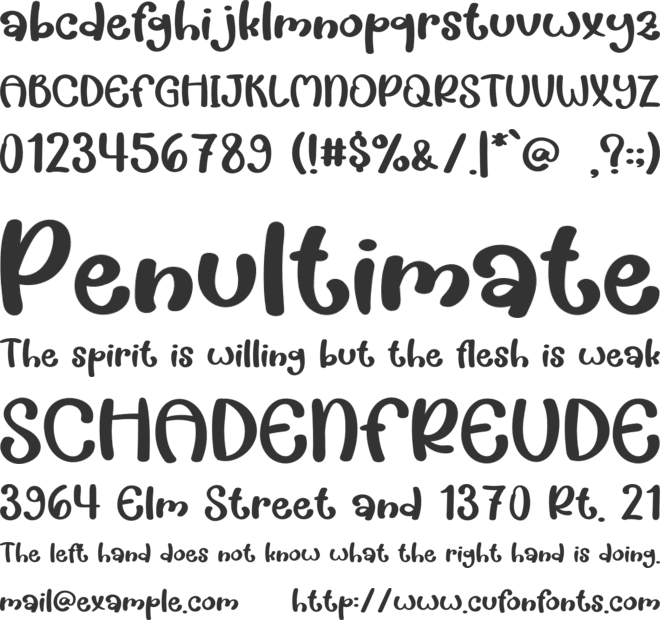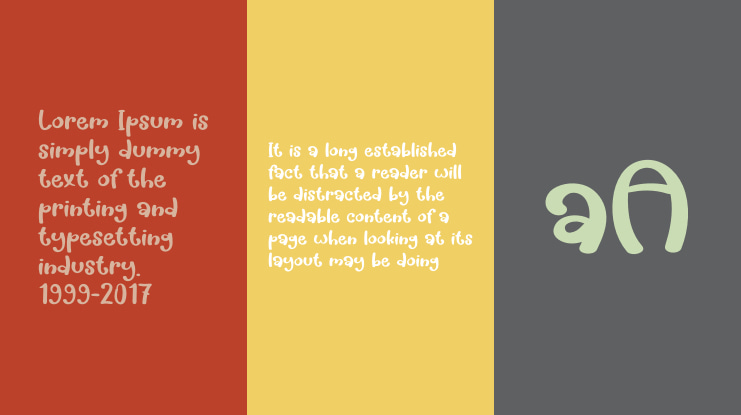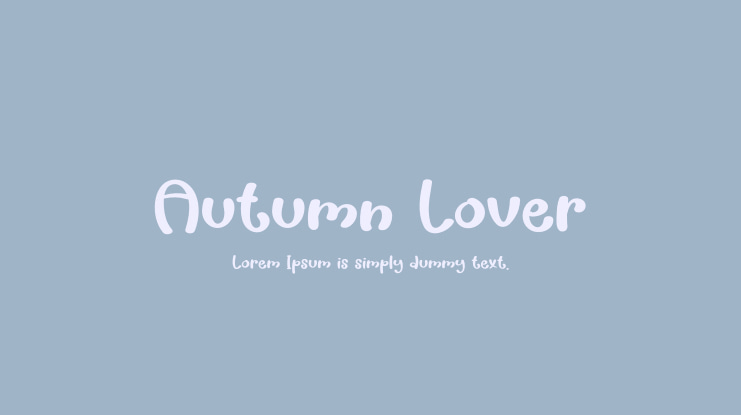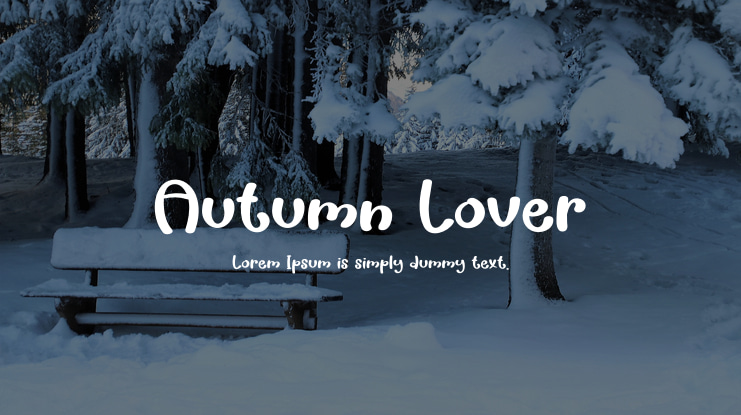
Autumn Lover Font
Autumn Lover is an incredibly cool and unique display font. It has a modern yet whimsical style, and it will undoubtedly immerse your designs into a magical world.